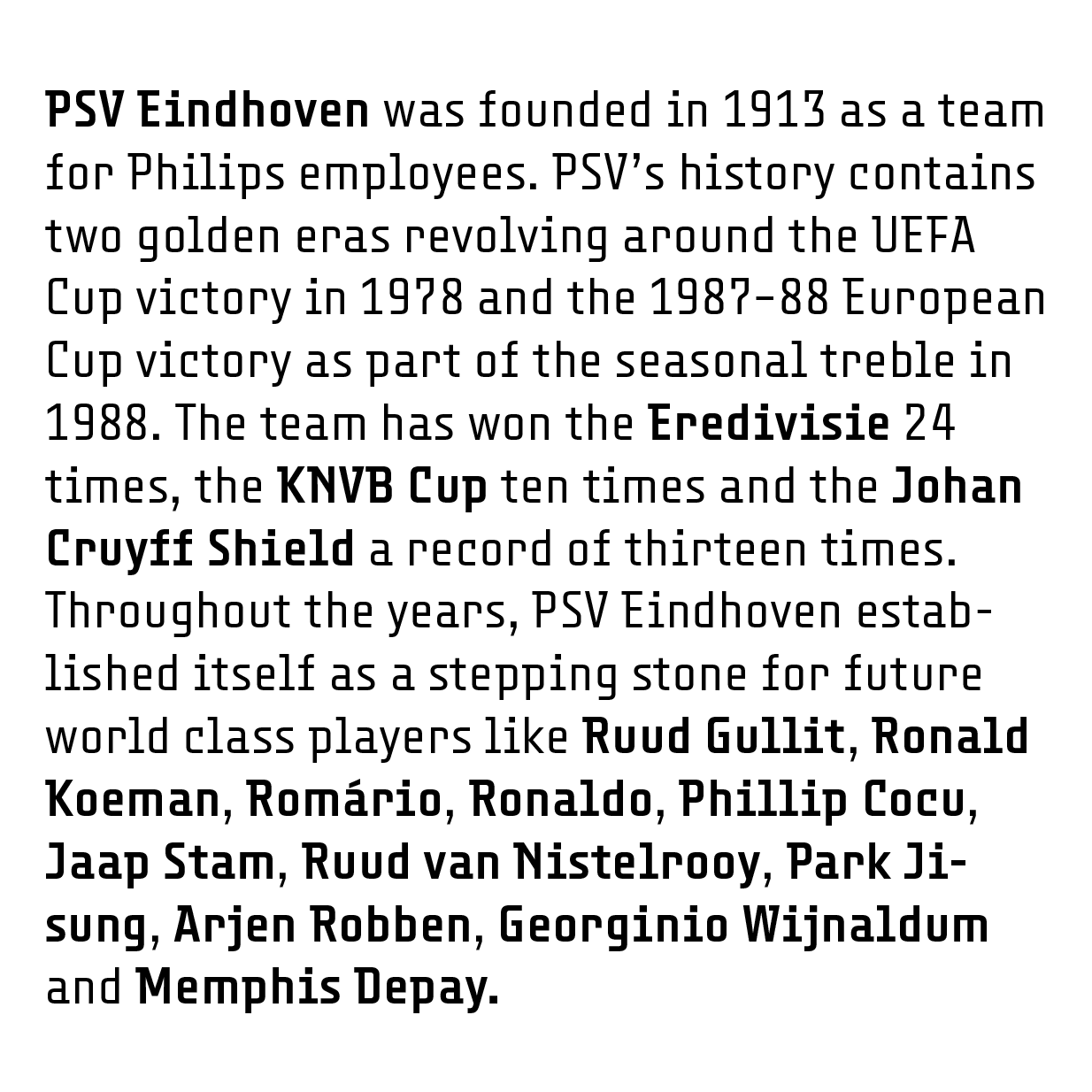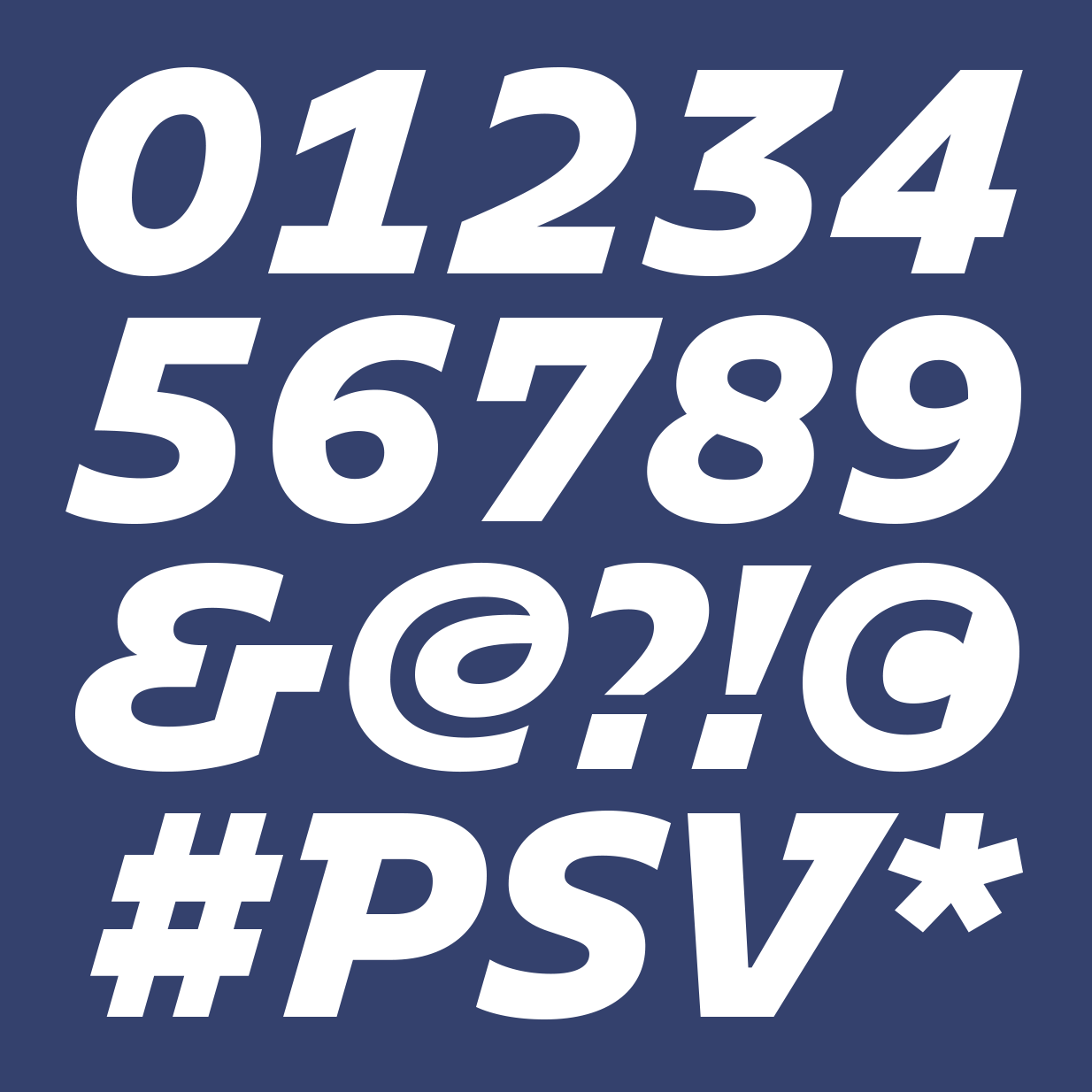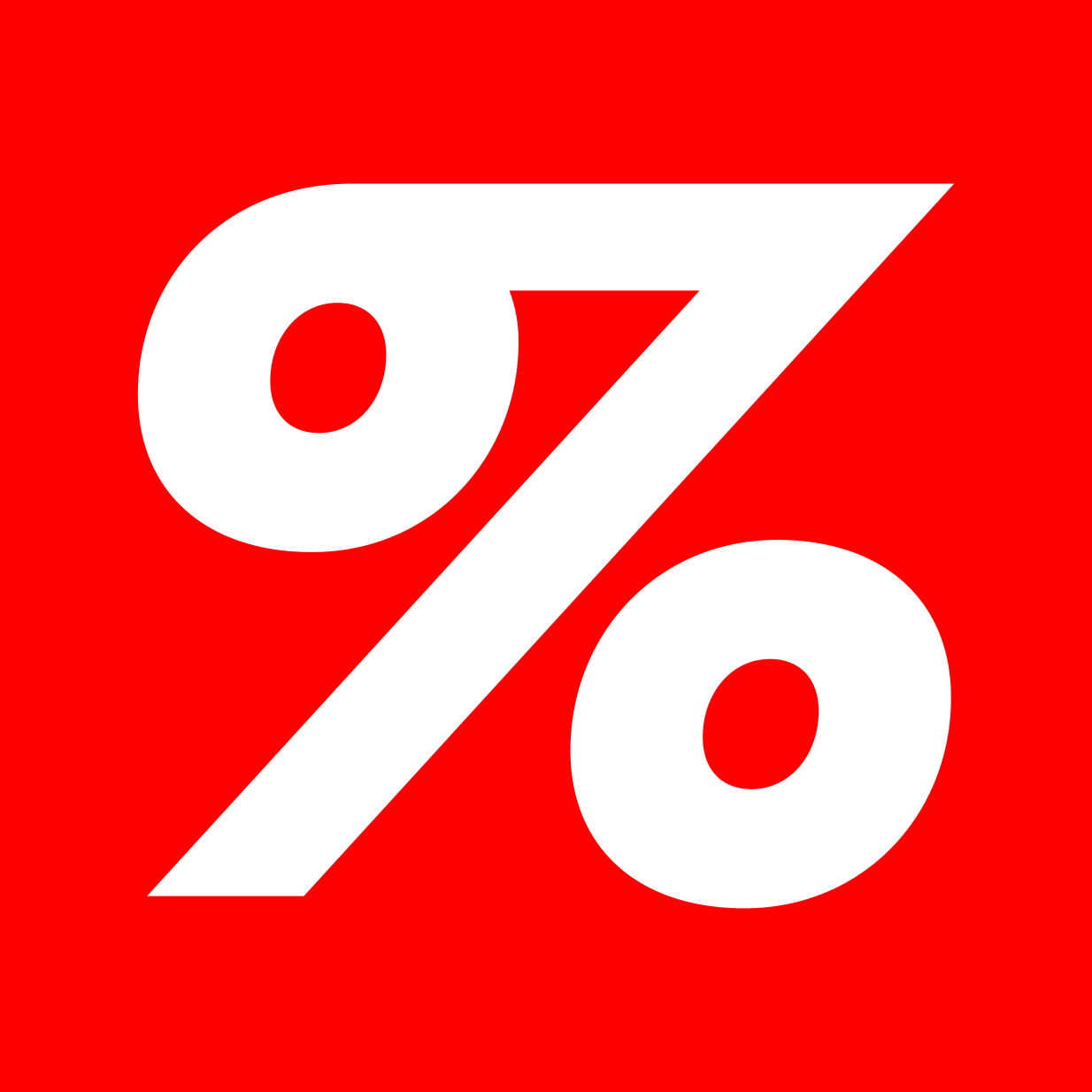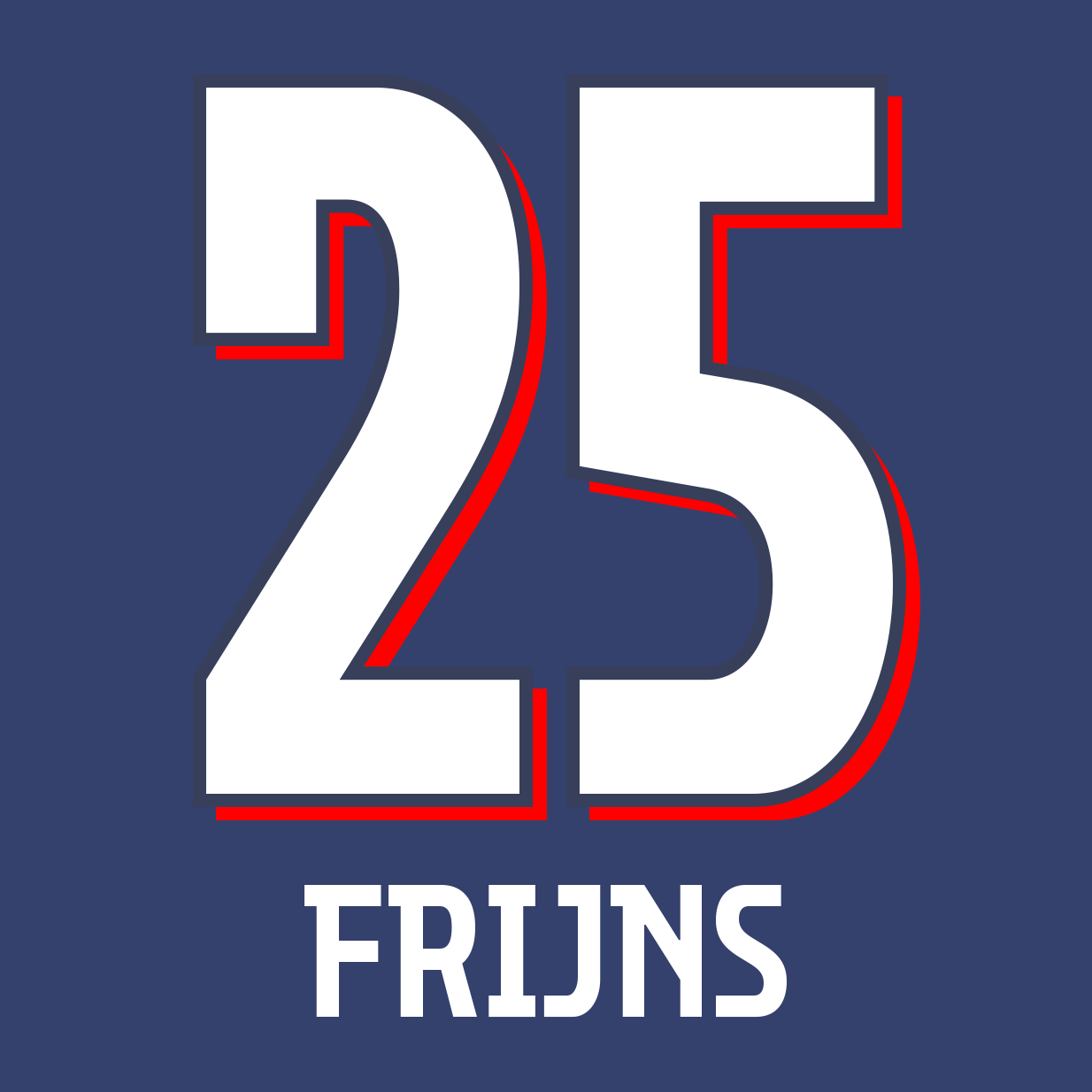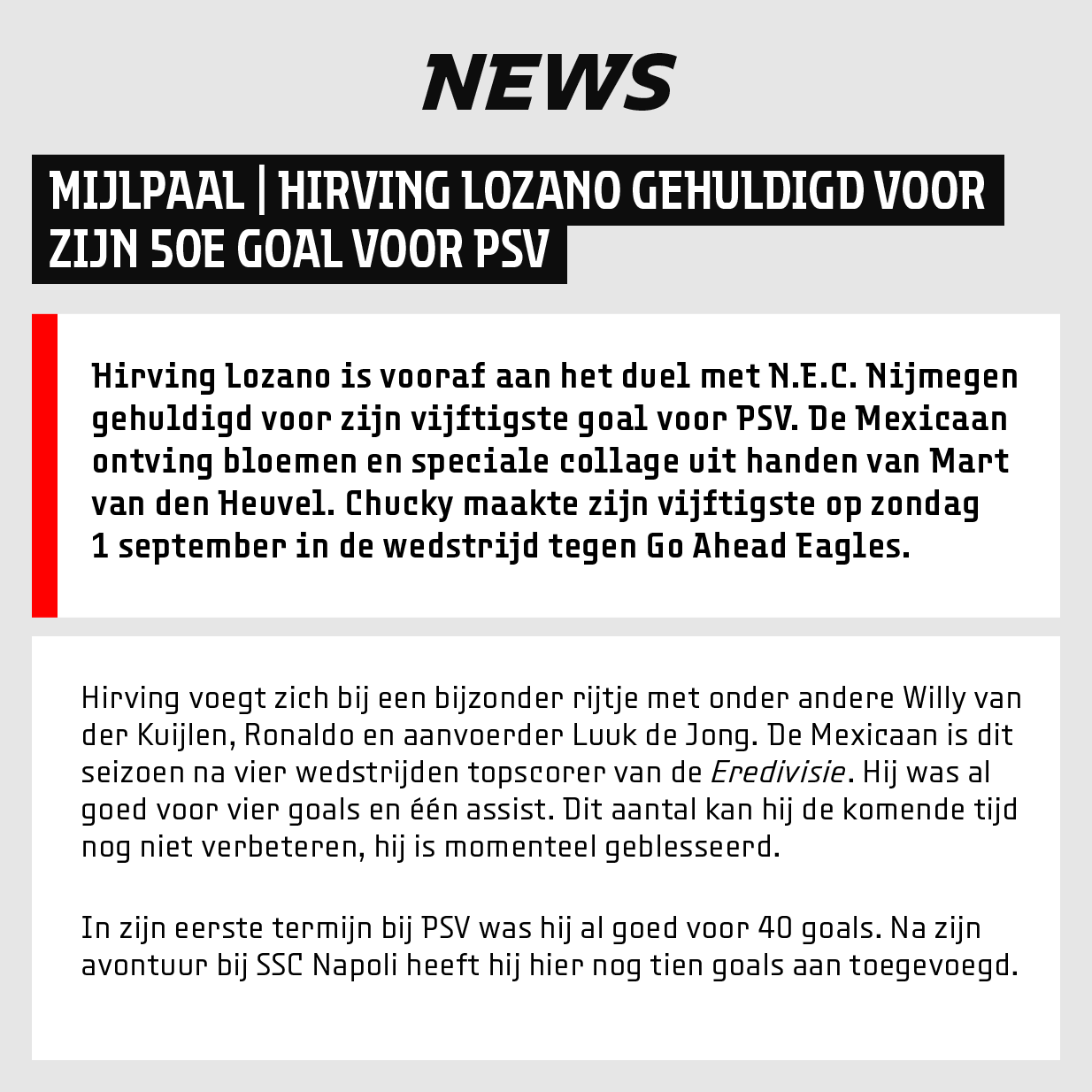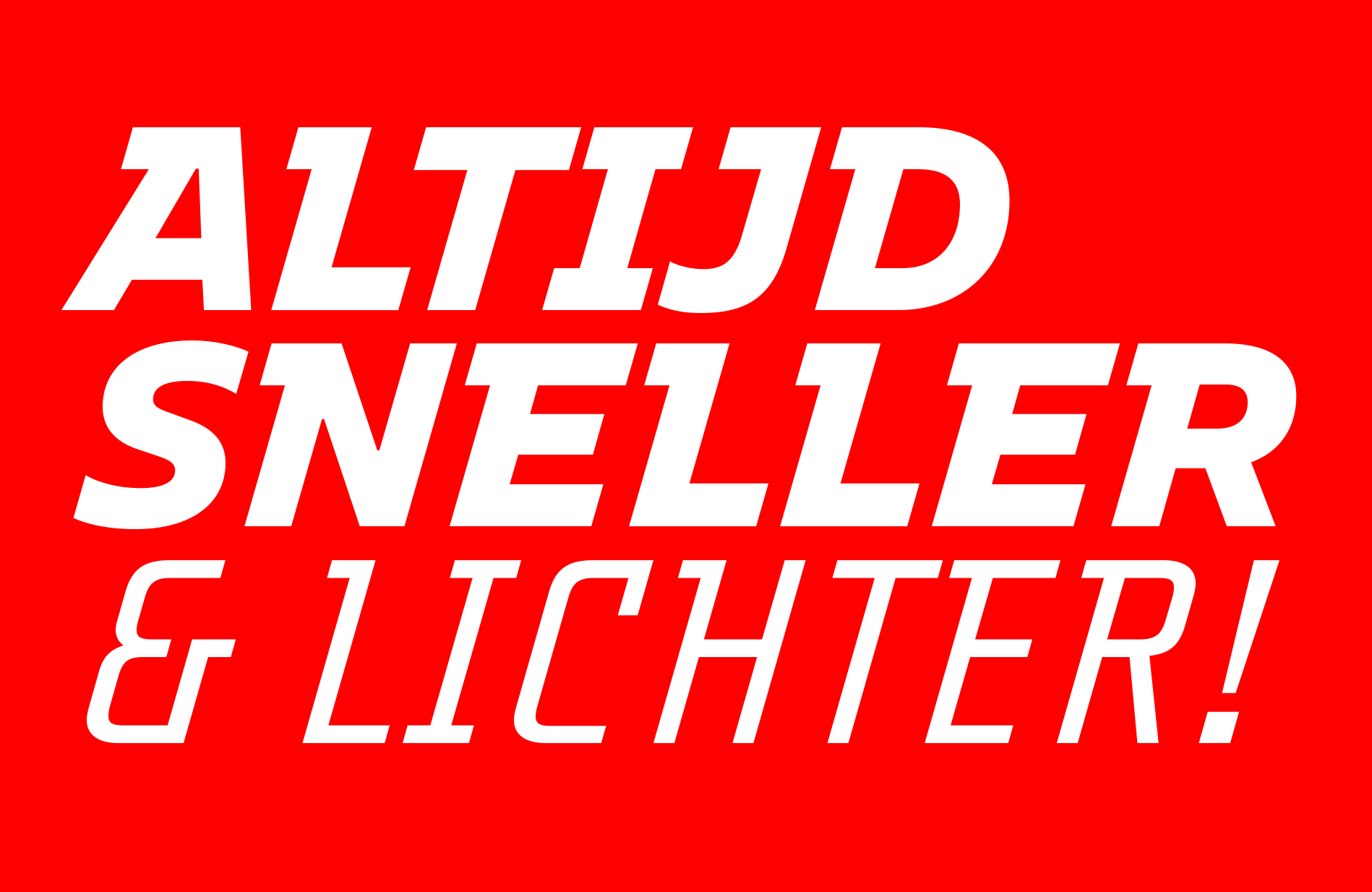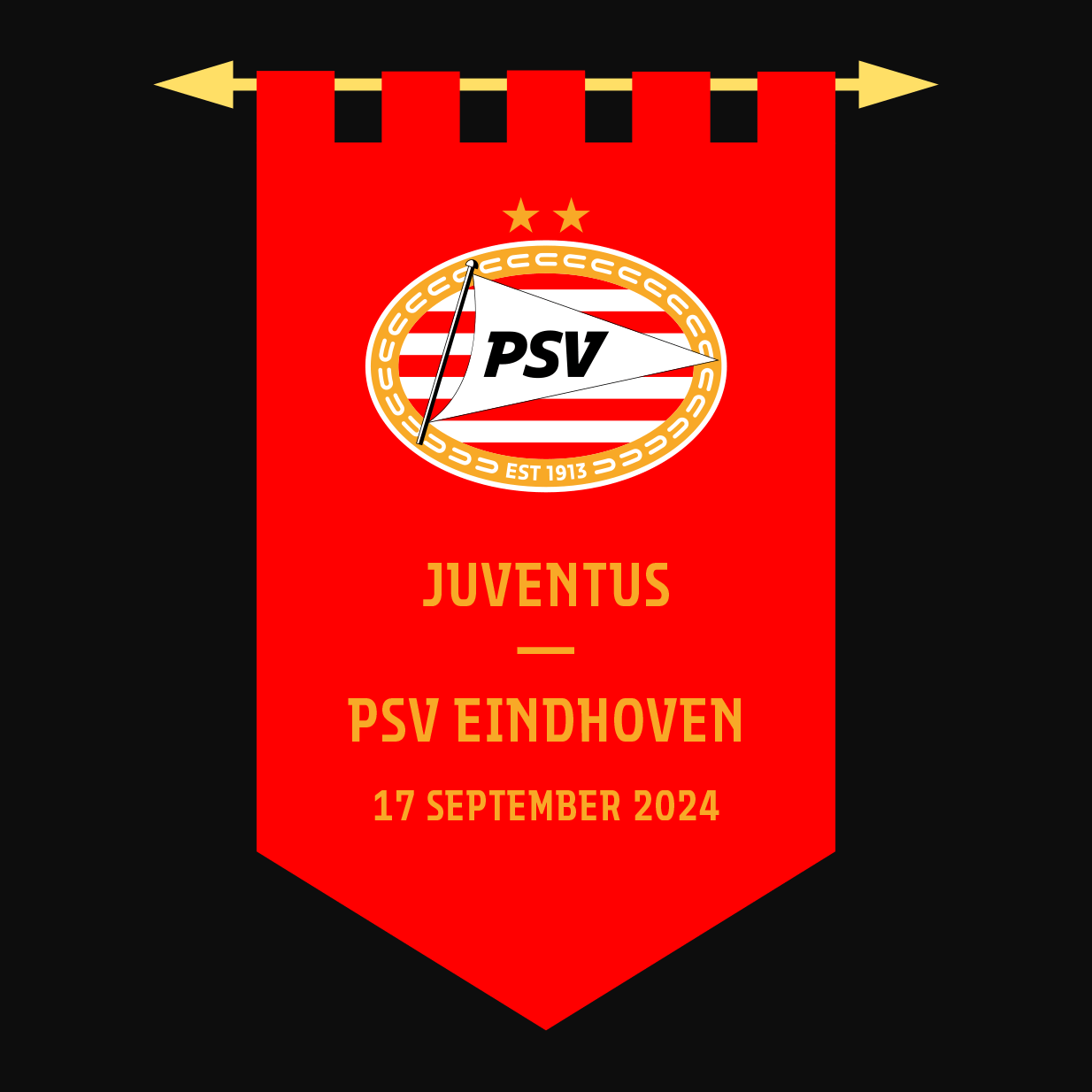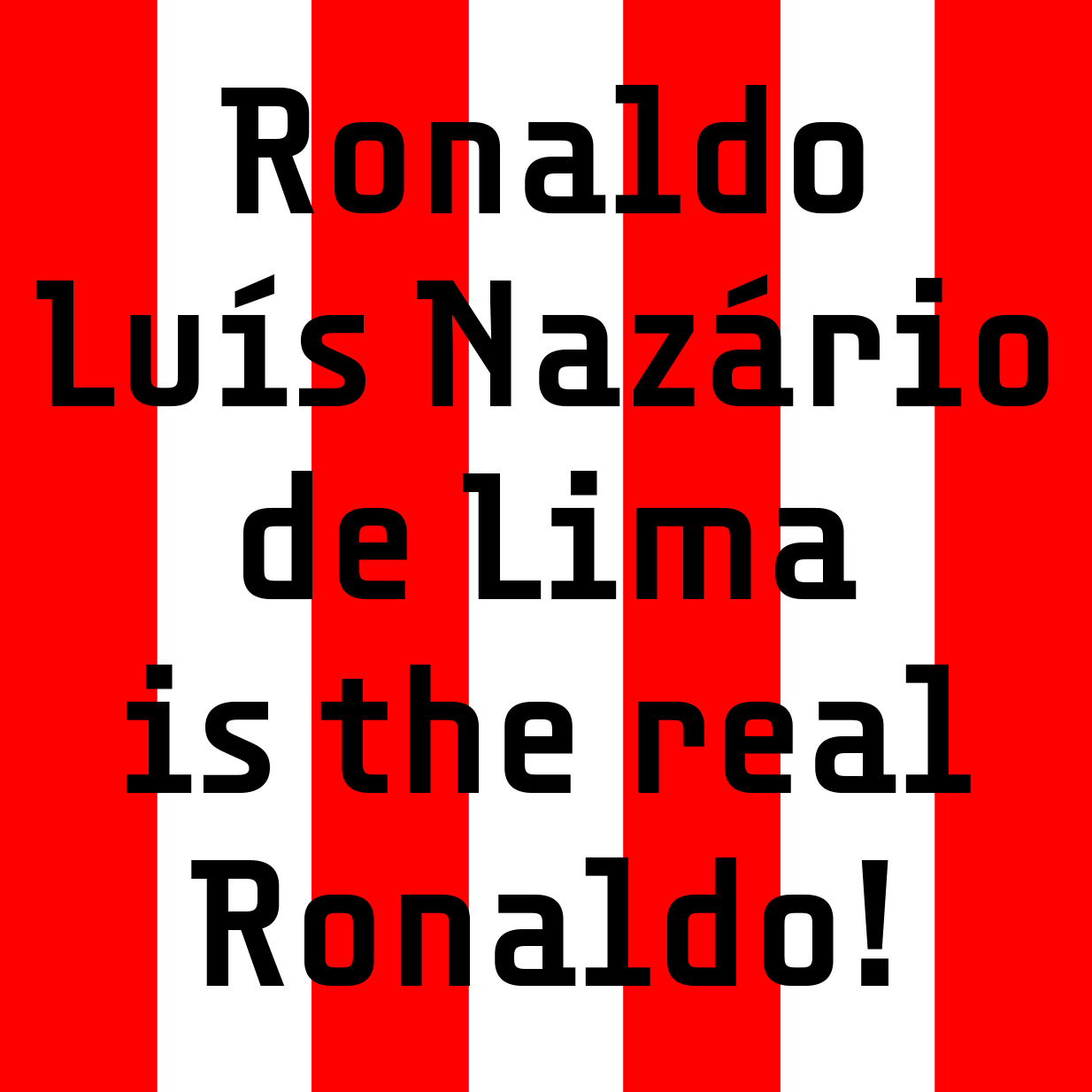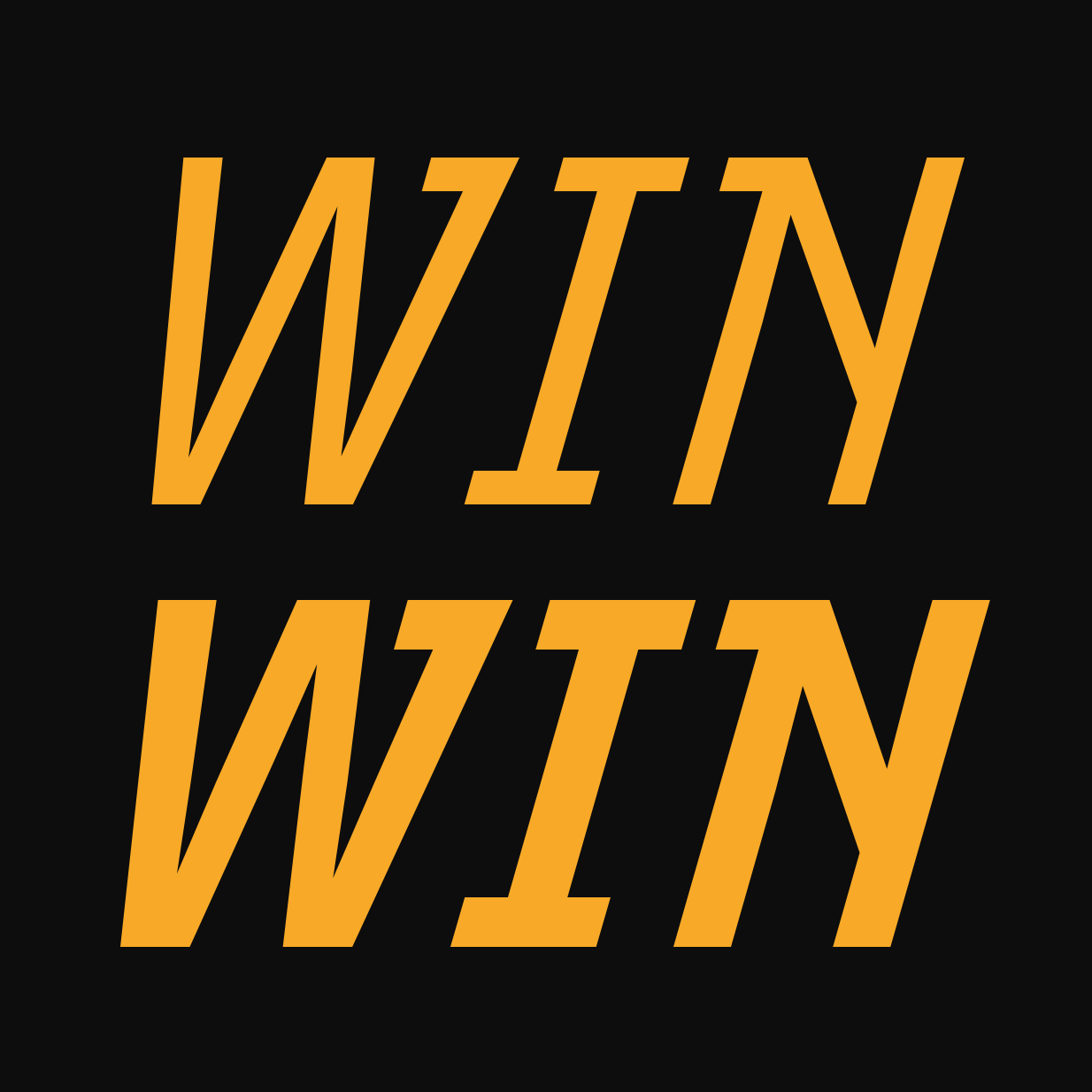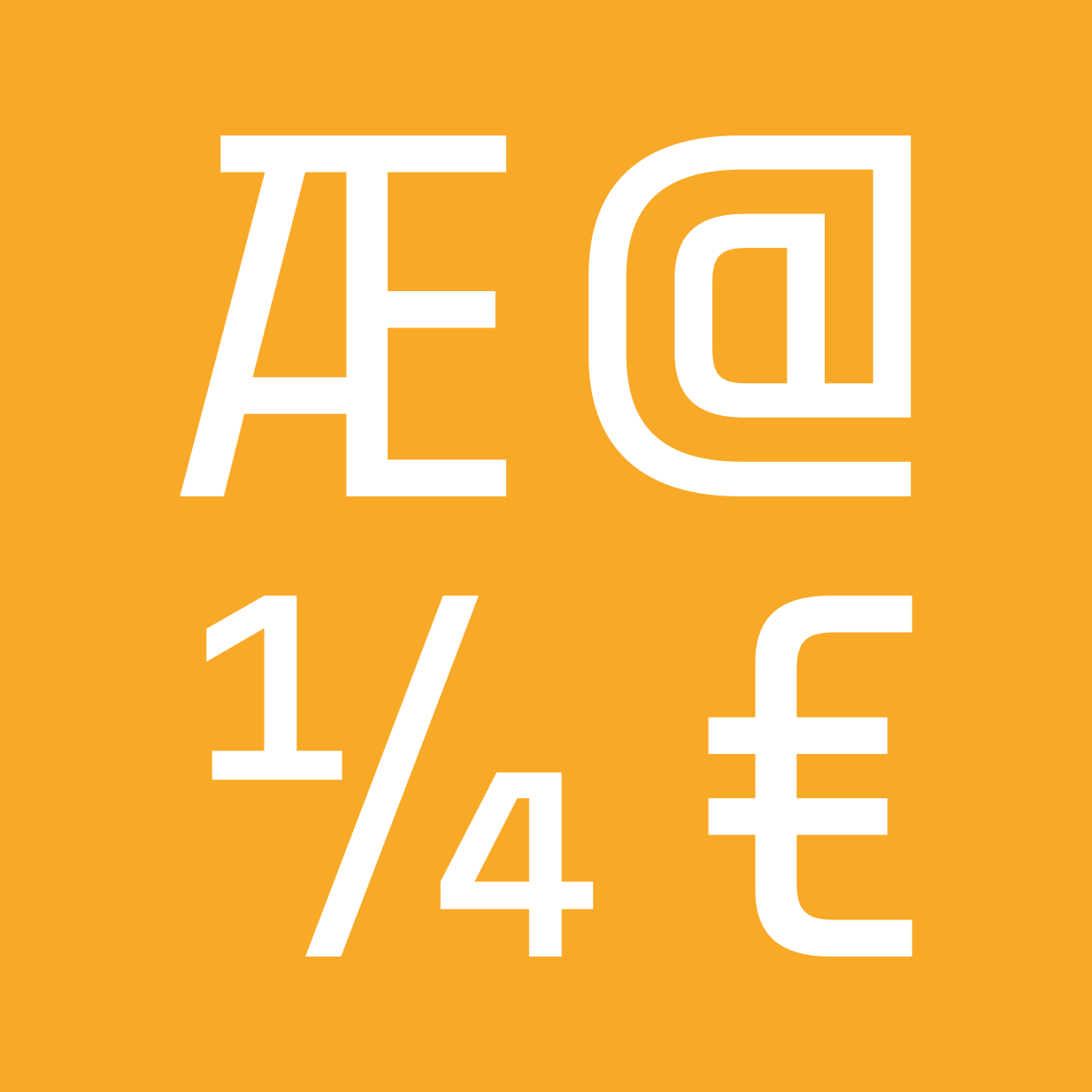
PSV Eindhoven
PSV, officially Philips Sport Vereniging, is a sport club in Eindhoven, The Netherlands, most known for its football division. It is regarded as one of the top football clubs in the country.
In 2019 PSV approached Bold Monday to design a custom branding typeface based on their traditional logo design featuring the bold italic caps “PSV” with unique slab-serifs. The project grew from an initial all-caps font to improve and unify the different PSV brands and divisions – and the lettering on the logo – into a larger set of custom typefaces, all designed by PSV fan Pieter van Rosmalen.
Next to the relatively wide and round PSV Branding Italic van Rosmalen designed a more condensed and constructed all-caps variant for jerseys. This style was later expanded into a more complete type family, PSV Sans, for short texts, display applications and ephemera. Realising that they would also need a version for longer texts, van Rosmalen added PSV Text to the now quite comprehensive set that all complement the branding font.
Fun facts: In addition to a basic set of arrows, the fonts include the Eindhoven logo, a “vibe” symbol, a slab element, and a star. The condensed jersey typeface was designed without overshoots to ensure fan jersey names can be spaced manually using a ruler. Creating stars together.
PSV, Eindhoven